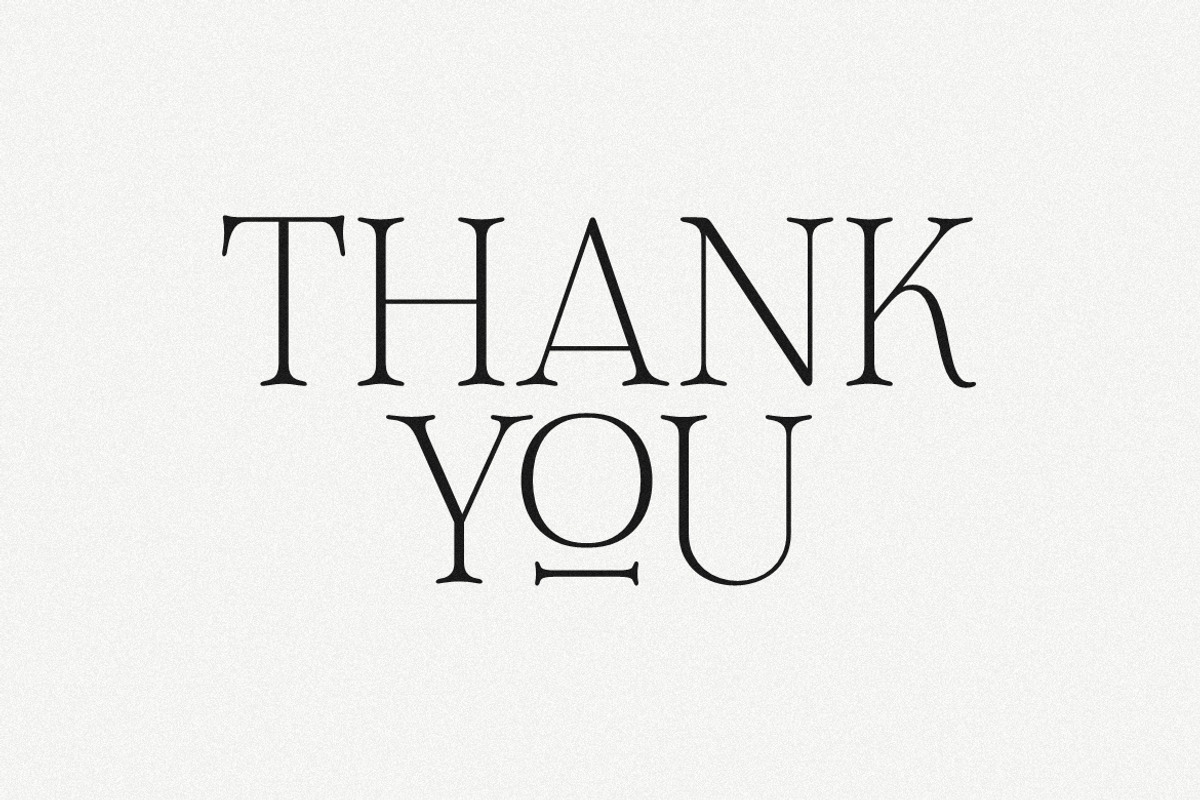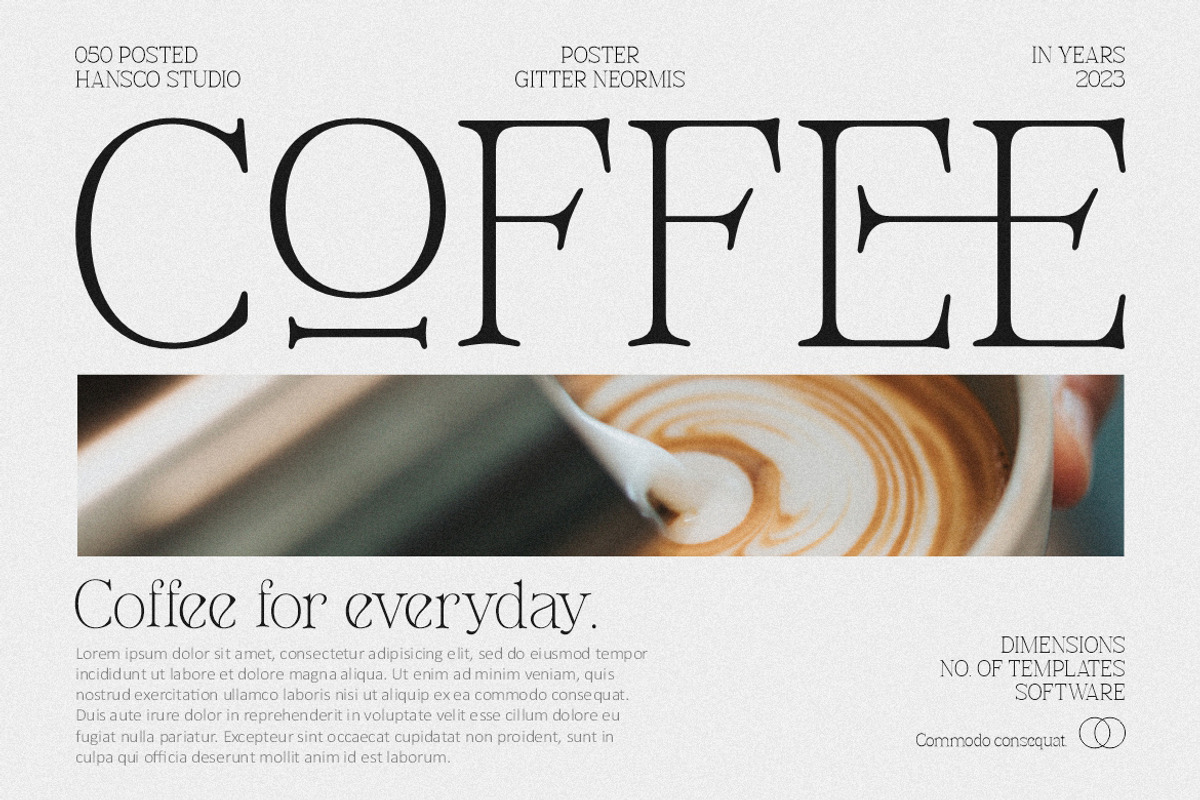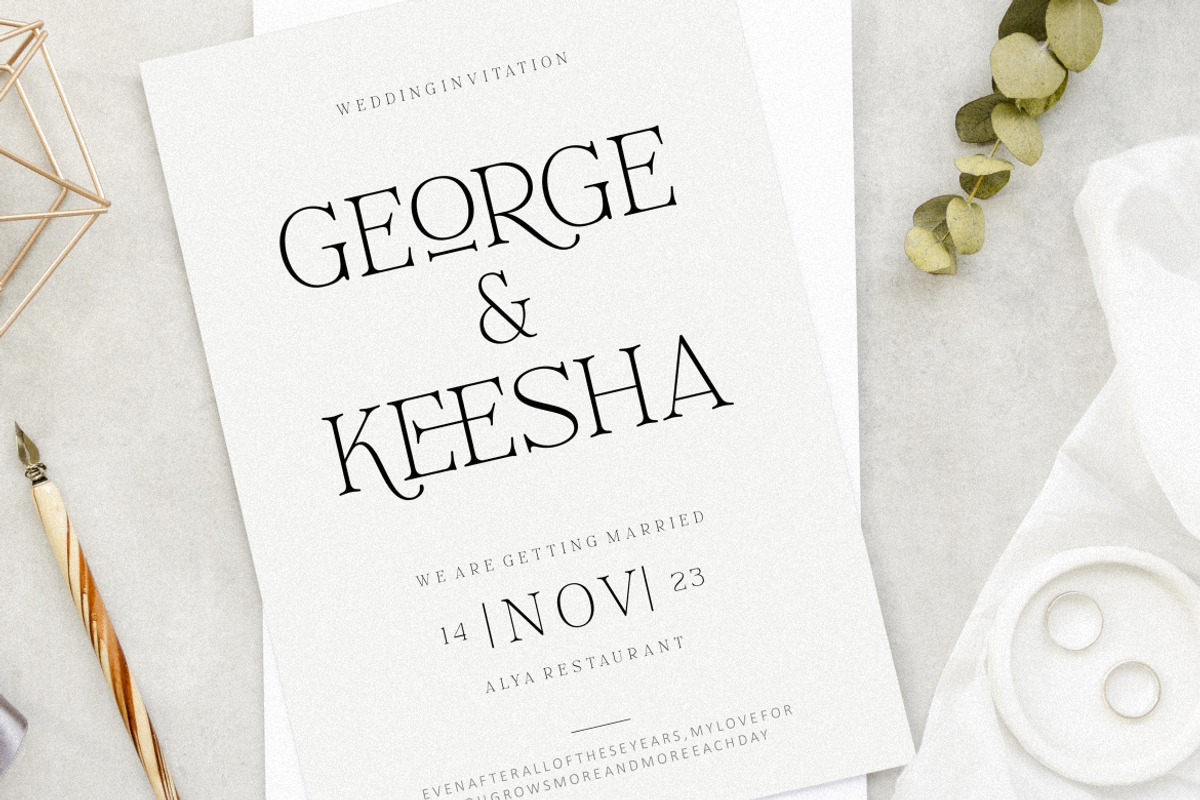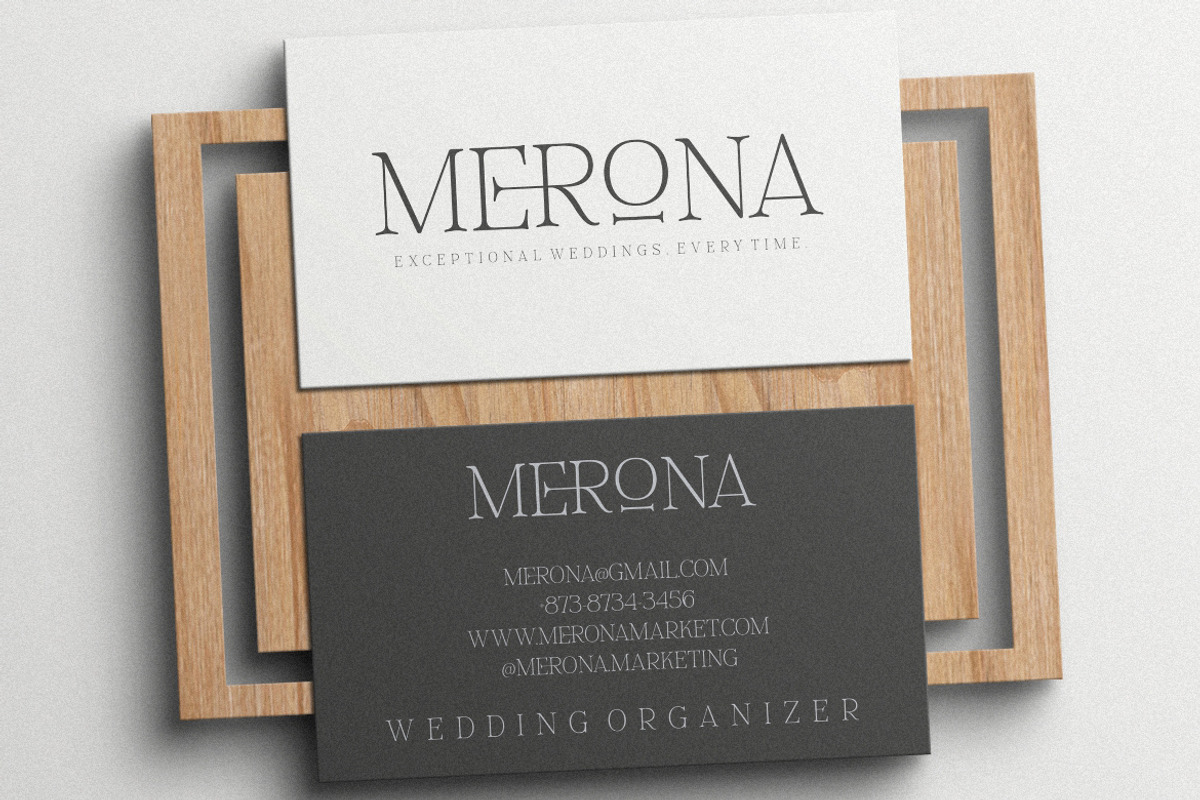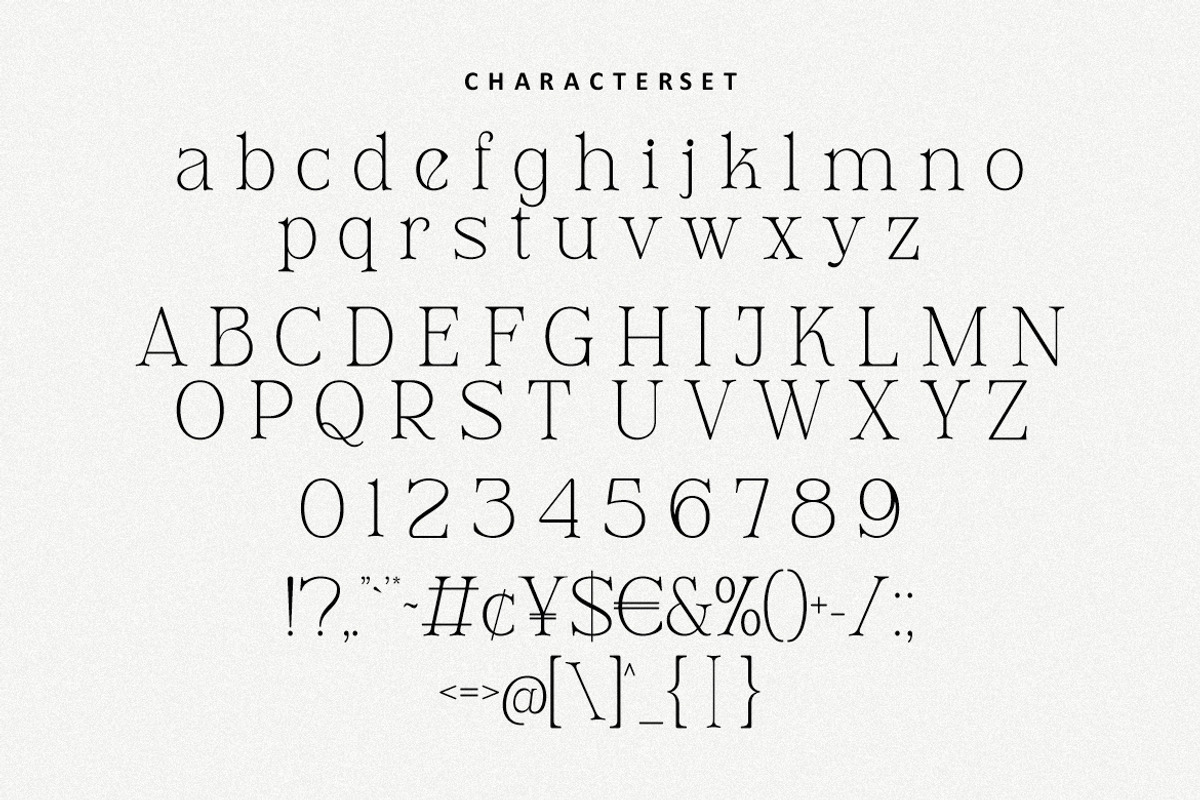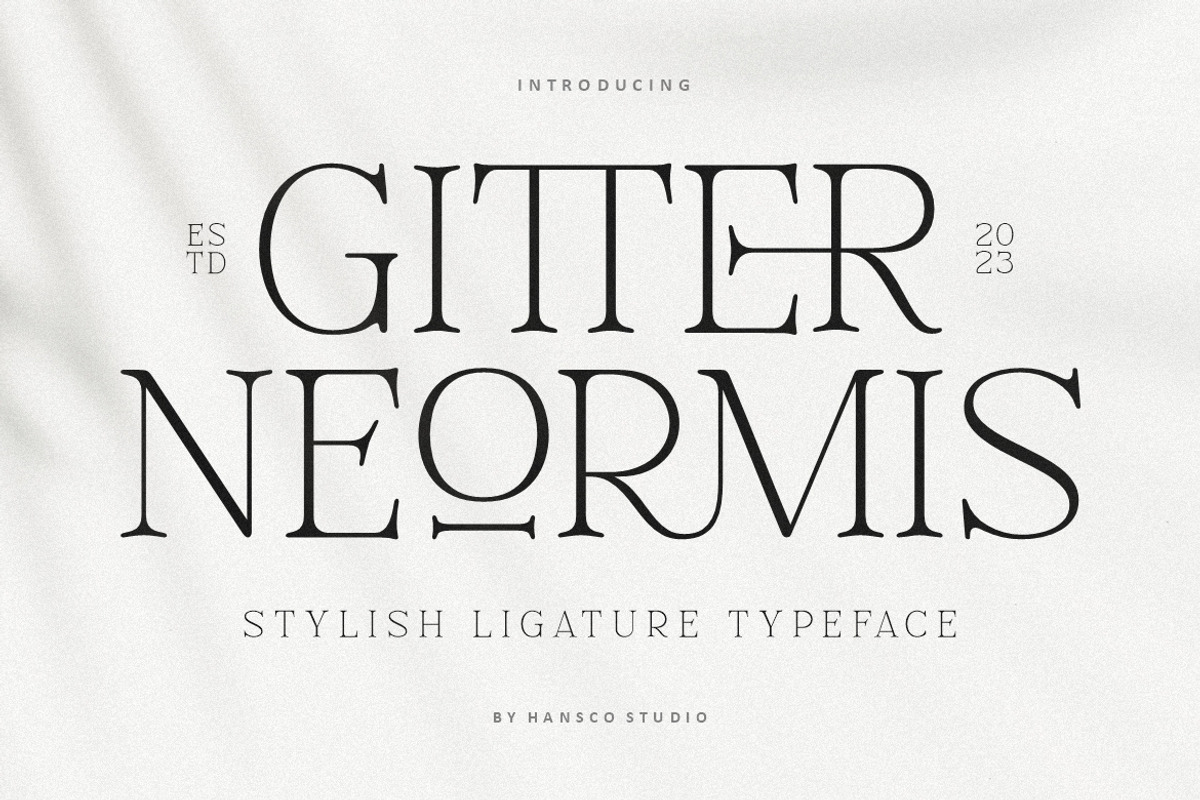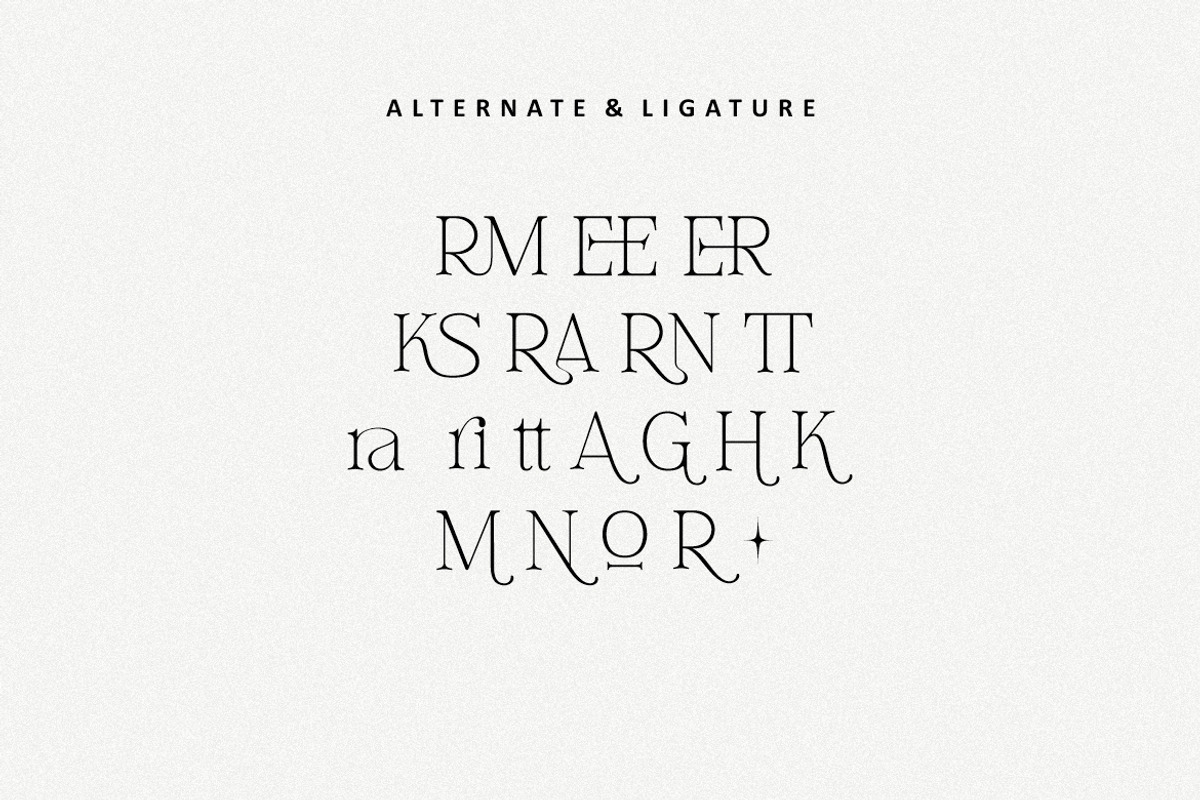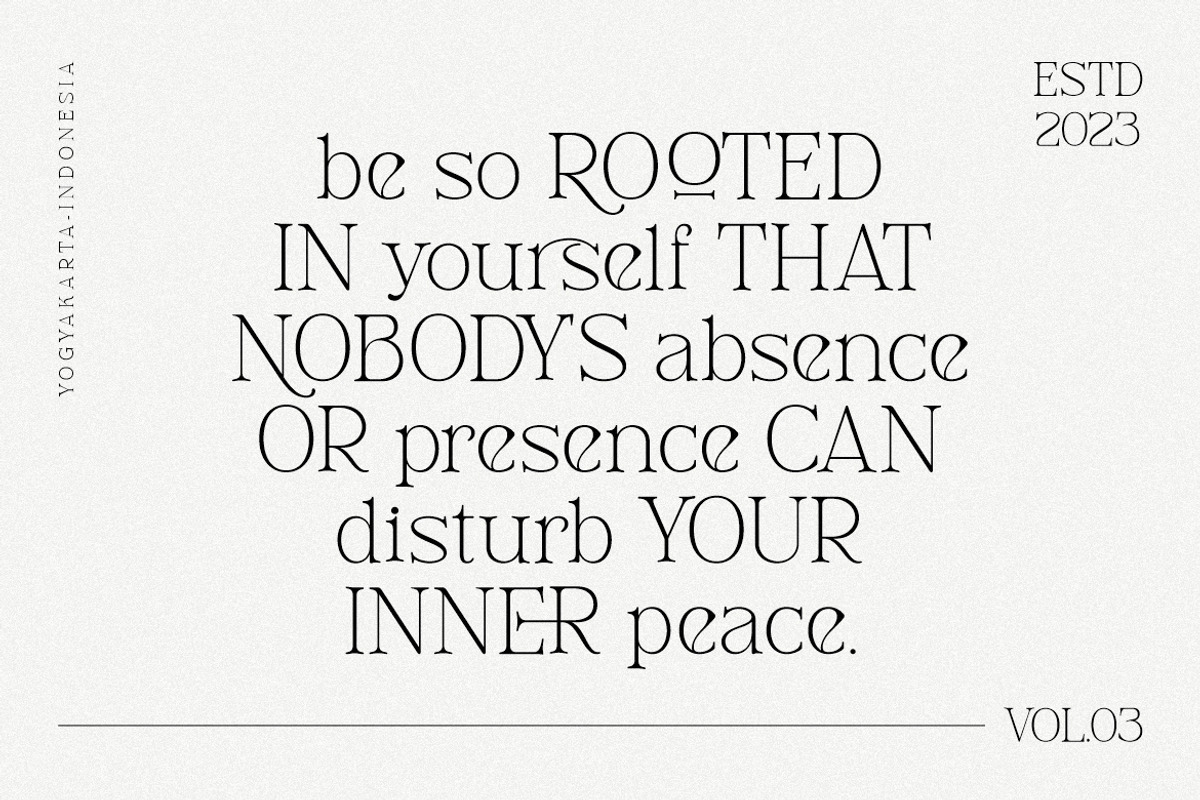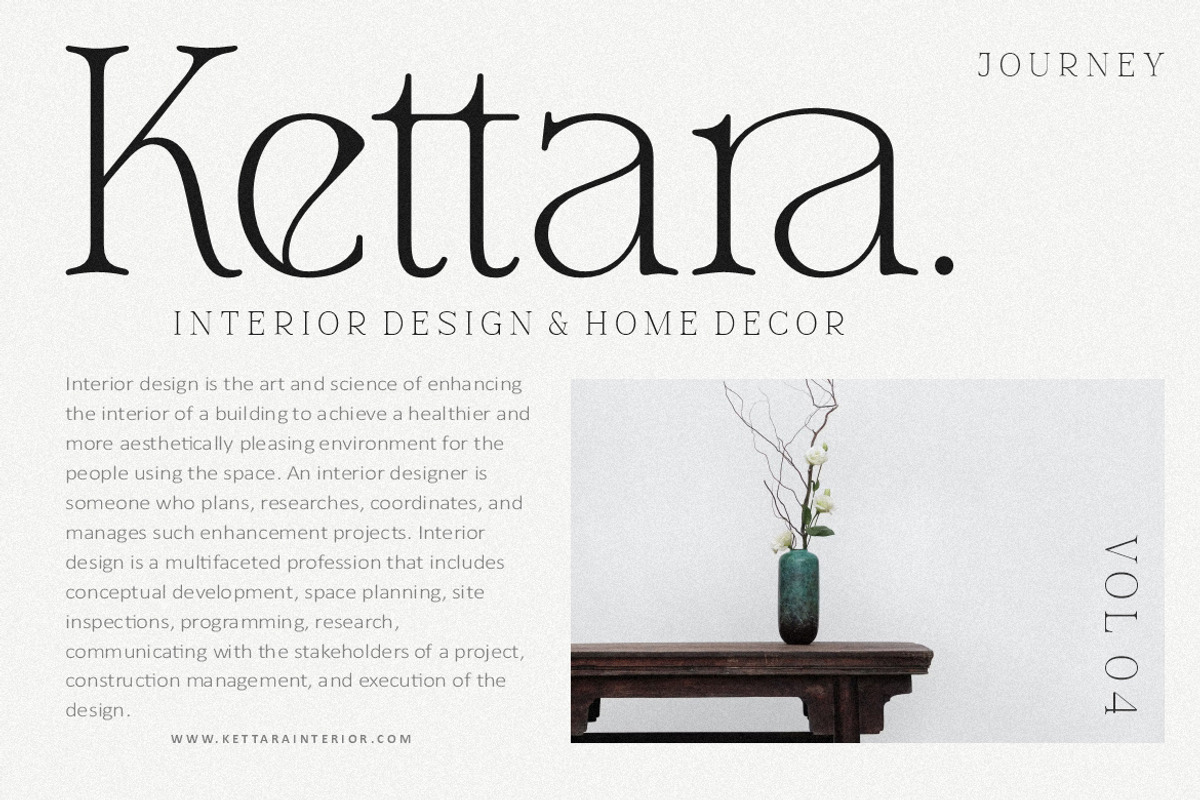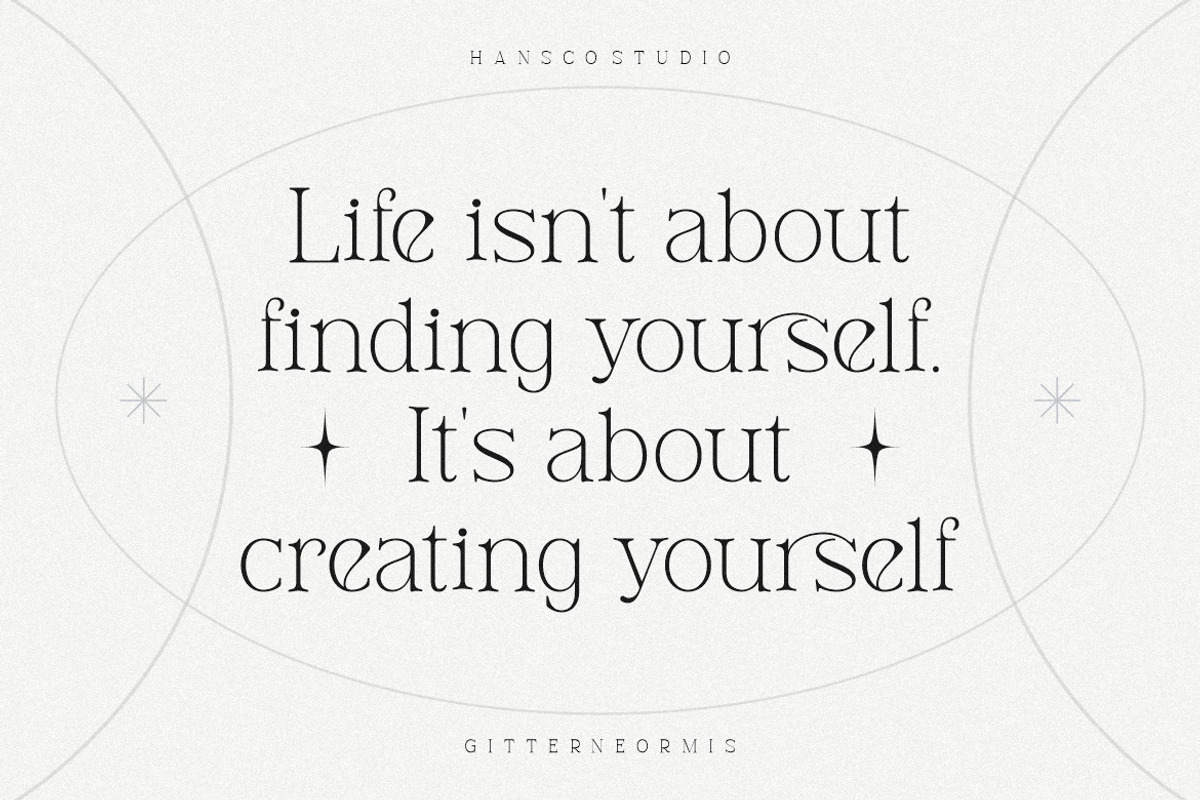
Gitter Neormis Font - Aesthetic Font
Gitter Neormis Font is a classy display serif font with unique look that is perfect for multipurpose projects. I made Gitter Neormis Font inspired by the concept of romantic vibes and made it into a modern yet luxury style. This font is also looks elegant and will fit well in any design and very recommended for logo, crafts, posters, books, branding, quotes, print templates, packaging, invitations, product labels, advertising, wedding project and more. This typeface comes in uppercase, lowercase, with punctuation, symbols, numerals, ligature and stylistic alternates. This font is PUA encoded which means you can access all of the charming glyphs and swashes with Character Map on Windows or Font Book on Mac.
Number
Multilingual Supports
Alternate & Ligature character